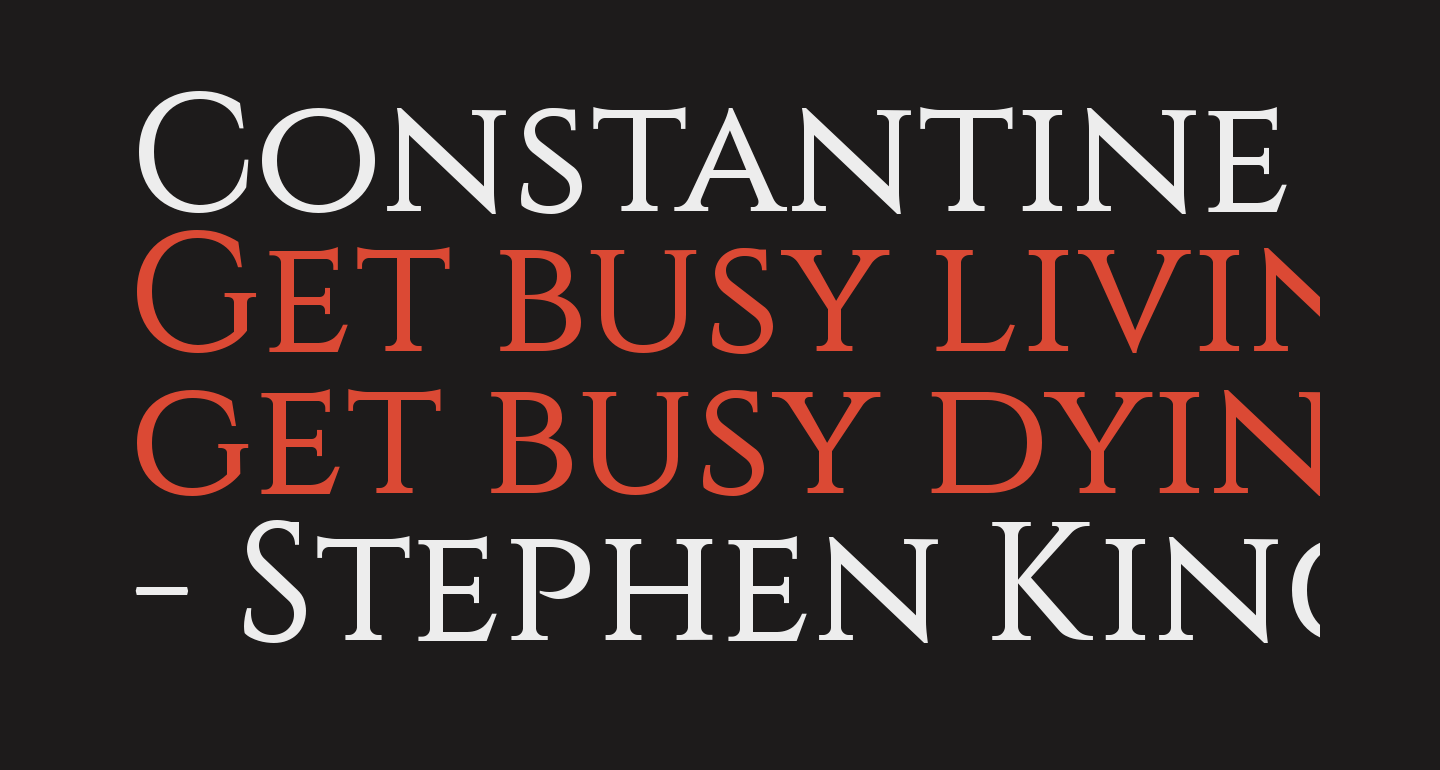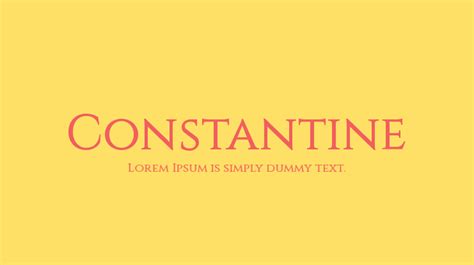
Web free download of constantine font. Web constantine is roman style typeface inspired by emperor constantine the great. Web download free alternative constantine logo font. Web free download of constantine font.
Constatine Free Font - Web free download of constantine font. Constantine is roman style typeface inspired by emperor constantine the great. Web constantine free font. Web constantine is roman style typeface inspired by emperor constantine the great. Download 10,000 fonts with one click for $19.95.
Constatine Free Font - Download 10,000 fonts with one click for $19.95. Web constantine is roman style typeface inspired by emperor constantine the great. Web download and install the constantine font by dukom design. Web constantine free font. Web free download of constantine font.
Constatine Free Font - Web constantine free font. Web free download of constantine font. Constantine is roman style typeface inspired by emperor constantine the great. Web download free alternative constantine logo font. Web constantine is roman style typeface inspired by emperor constantine the great.
Constatine Free Font - Download 10,000 fonts with one click for $19.95. Convert your favorite text, font, or logo to death metal and chrome styles with just. Web constantine is roman style typeface inspired by emperor constantine the great. The constantine font has been downloaded 16,247 times. Web download and install the constantine font by dukom design.
Constatine Free Font - Web constantine is roman style typeface inspired by emperor constantine the great. Constantine is roman style typeface inspired by emperor constantine the great. Convert your favorite text, font, or logo to death metal and chrome styles with just. He was born in nowadays serbia, in city naissus. Web free download of constantine font.
Constatine Free Font - Download 10,000 fonts with one click for $19.95. The constantine font has been downloaded 16,247 times. Web download free alternative constantine logo font. Web constantine is roman style typeface inspired by emperor constantine the great. He was born in nowadays.
Constatine Free Font - The constantine font has been downloaded 16,247 times. Web constantine is roman style typeface inspired by emperor constantine the great. Convert your favorite text, font, or logo to death metal and chrome styles with just. Download 10,000 fonts with one click for $19.95. Web download free alternative constantine logo font.
Constatine Free Font - Web download and install the constantine font by dukom design. Web constantine free font. Web constantine is roman style typeface inspired by emperor constantine the great. Web constantine is roman style typeface inspired by emperor constantine the great. He was born in nowadays.
Constatine Free Font - Download 10,000 fonts with one click for $19.95. Web constantine is roman style typeface inspired by emperor constantine the great. The constantine font has been downloaded 16,247 times. Convert your favorite text, font, or logo to death metal and chrome styles with just. Web download and install the constantine font by dukom design.
Constatine Free Font - Web constantine is roman style typeface inspired by emperor constantine the great. He was born in nowadays. Web download and install the constantine font by dukom design. Web download free alternative constantine logo font. Download 10,000 fonts with one click for $19.95.
Constatine Free Font - Constantine is roman style typeface inspired by emperor constantine the great. Web constantine is roman style typeface inspired by emperor constantine the great. Convert your favorite text, font, or logo to death metal and chrome styles with just. Web download free alternative constantine logo font. Download 10,000 fonts with one click for $19.95.
Constatine Free Font - Download 10,000 fonts with one click for $19.95. The constantine font has been downloaded 16,247 times. Web constantine is roman style typeface inspired by emperor constantine the great. Web constantine free font. Web free download of constantine font.